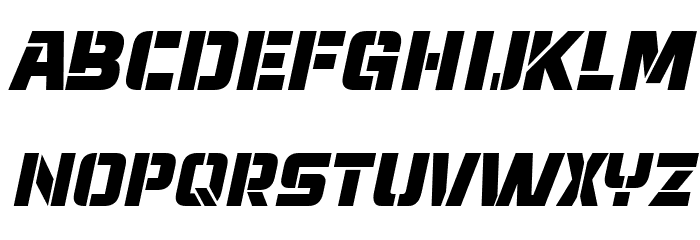
Normandia Italic Font
This font features a bold and dynamic design with a strong italic slant, giving it a sense of motion and energy. The characters are constructed with sharp angles and clean lines, creating a modern and futuristic appearance. The uppercase and lowercase letters maintain a consistent style, with the lowercase slightly smaller but equally impactful. The numerals are bold and clear, ensuring readability. Special characters are designed to match the overall aesthetic, providing a cohesive look across all glyphs. The font's boldness and slant make it ideal for attention-grabbing headlines and impactful designs.
A bold, italic font with a modern, dynamic style and sharp angles.
- Proposed Projects: Ideal for sports branding, dynamic posters, futuristic designs, and bold headlines.